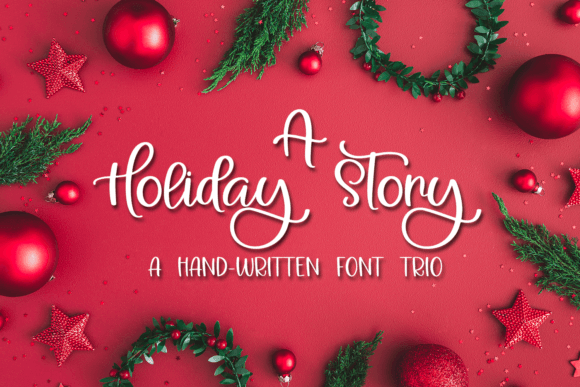
Nestled amidst the digital landscape, there lies a treasure trove of captivating fonts—A Holiday Story—an extraordinary script font family, meticulously designed by the artistic hands at Cinnamon & Lime. Inspired by the magic of the holiday season, this font is a visual masterpiece, brimming with charm and boundless creative possibilities.
A Holiday Story is a font with a soul, a timeless companion for your artistic endeavors. Its whimsical strokes and elegant curves effortlessly evoke the spirit of merriment, warmth, and joy, making it the perfect choice for crafting heartfelt messages, enchanting logos, and personalized branding that resonates with your audience.
With A Holiday Story, you can effortlessly transform ordinary words into extraordinary expressions, capturing the essence of the season. Its PUA encoding grants you the power to unleash a symphony of glyphs and ligatures, adding depth and dimension to your designs.
Imagine adorning your artisanal creations with A Holiday Story's delicate touch, using your Cricut or Silhouette machine to bring life to intricate designs that emanate warmth and cheer. Elevate your SVG design business to new heights, creating captivating graphics that ignite imagination and evoke memories of cherished holiday moments.
Let A Holiday Story's enchanting allure captivate your digital planner designs and apps, transforming them into enchanting realms of productivity and inspiration. Adorn your website and blog with its timeless elegance, crafting designs that exude professionalism and creativity. Its ability to create personalized handwritten appeal makes A Holiday Story an ideal choice for headers and elements seeking a touch of authenticity and charm.
Step into the realm of motivational quote graphics and let A Holiday Story's delicate strokes bring your words to life. Create stunning visuals that inspire, uplift, and empower, captivating social media audiences with messages that resonate with their hearts. Unleash your artistic vision and create delicate graphic designs for women's t-shirts and clothing, adding a touch of whimsy and sophistication to everyday attire.
A Holiday Story is more than just a font; it's an invitation to embark on a creative journey, to express yourself in ways you never thought possible. Its boundless versatility empowers you to create heartfelt designs that capture the magic of the season, leaving an everlasting impression on those who encounter them.
Dive into the enchanting world of A Holiday Story today and discover the endless possibilities that await. Let your imagination soar, embrace the spirit of the holidays, and create designs that captivate and inspire.}